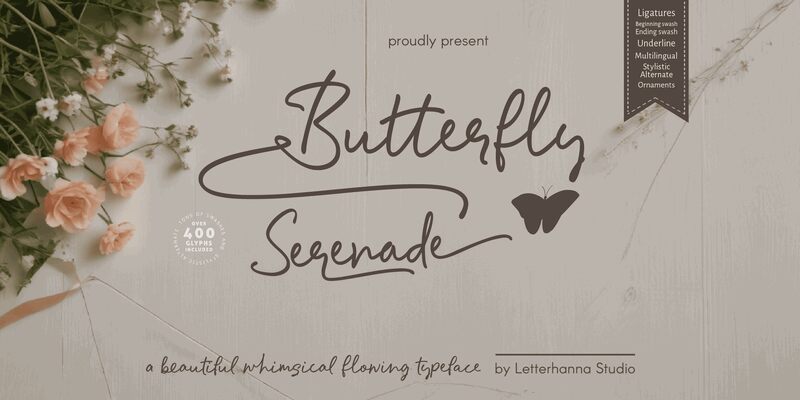
Butterfly Serenade font by Letterhanna Type Foundry is a free font that resembles charming natural handwriting. The typeface consists of letters in which the individual strokes appear to flow in a feathery manner. Perfectly named, the font represents the elegance and beauty of the flight of butterflies. In addition to everyday letters, it includes a wide range of unique ligatures that give a playful tone to any design professionally and least intentionally.
Use the Butterfly Serenade font for designing scrapbook titles, diaries, journals, blog titles, posters, social media posts, event flyers, and logos. The font makes a great fit for packaging, especially when added to the packaging of handmade and cosmetic products.